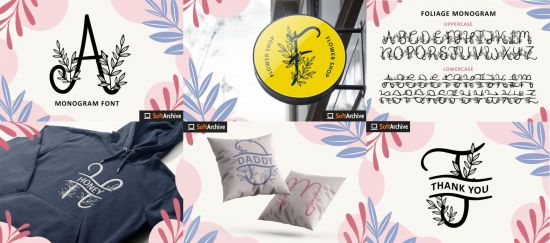
DesignOptimal - Foliage Monogram Font
Foliage Monogram simplifies elegance into one truly outstanding display font. It features original leaves-themed characters that will take your spring crafting projects to the next level!